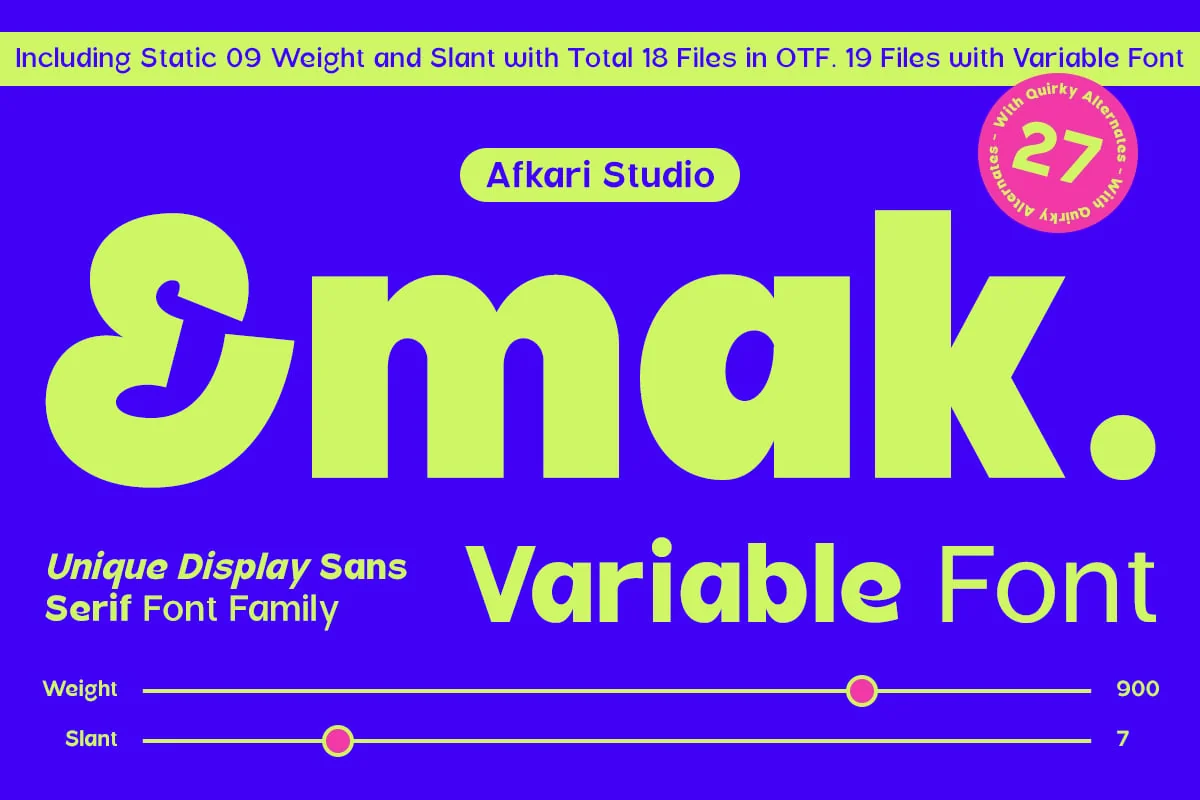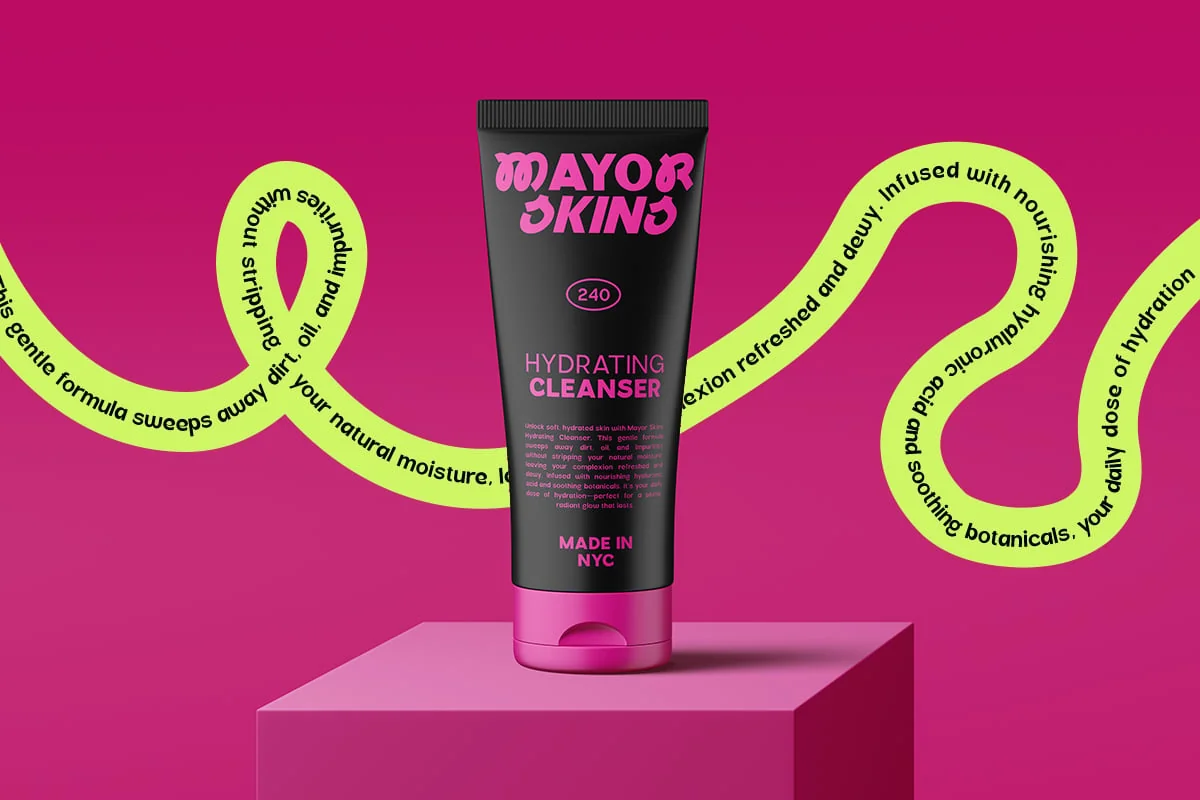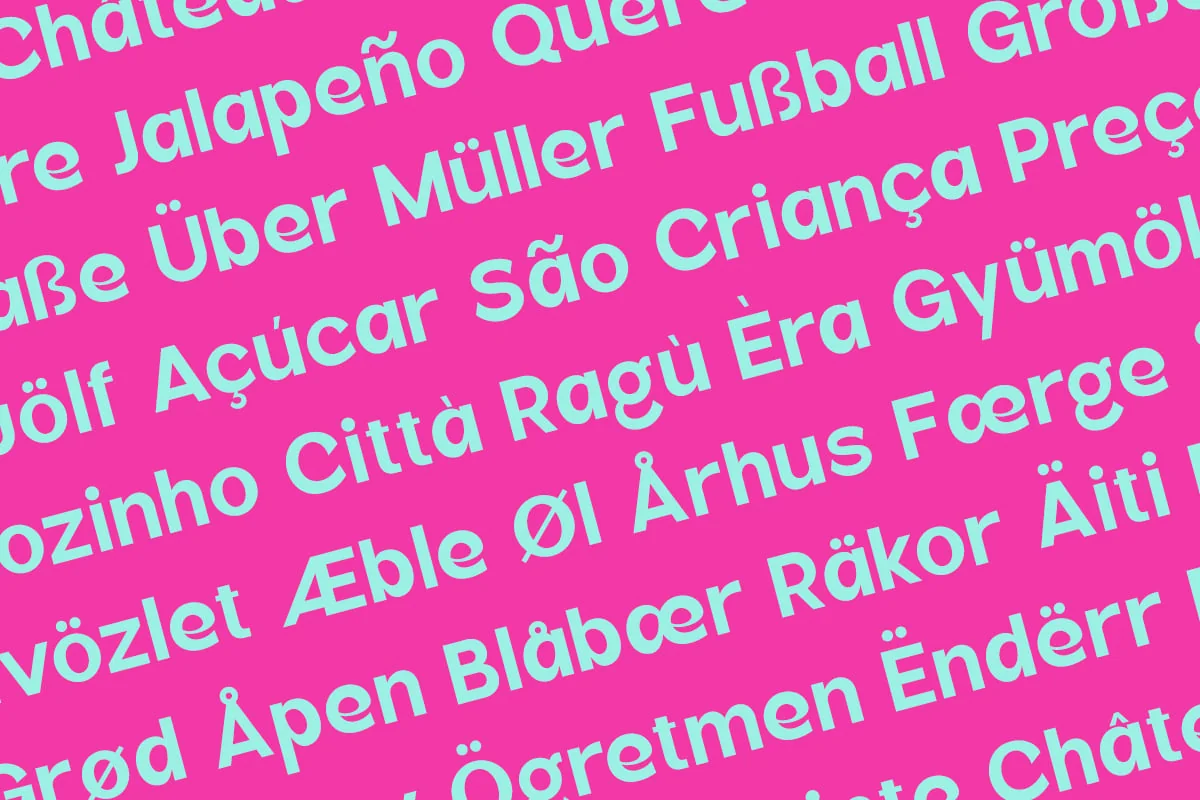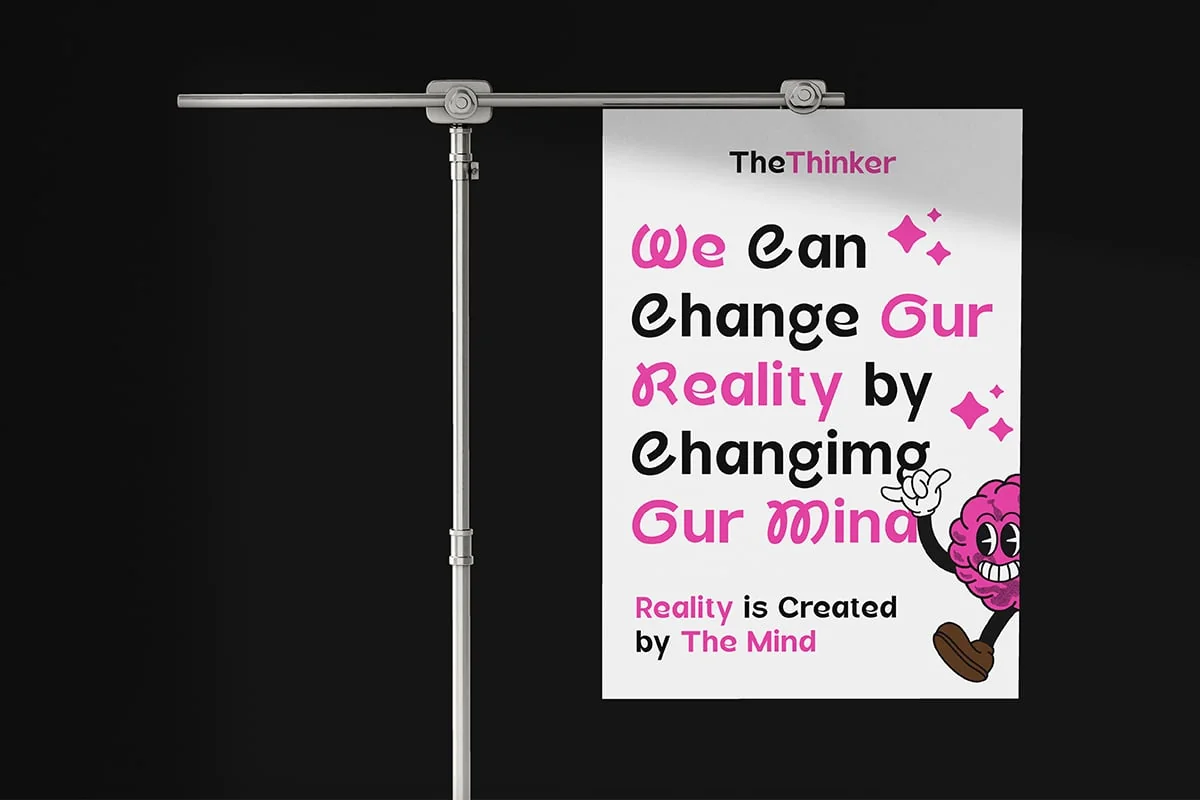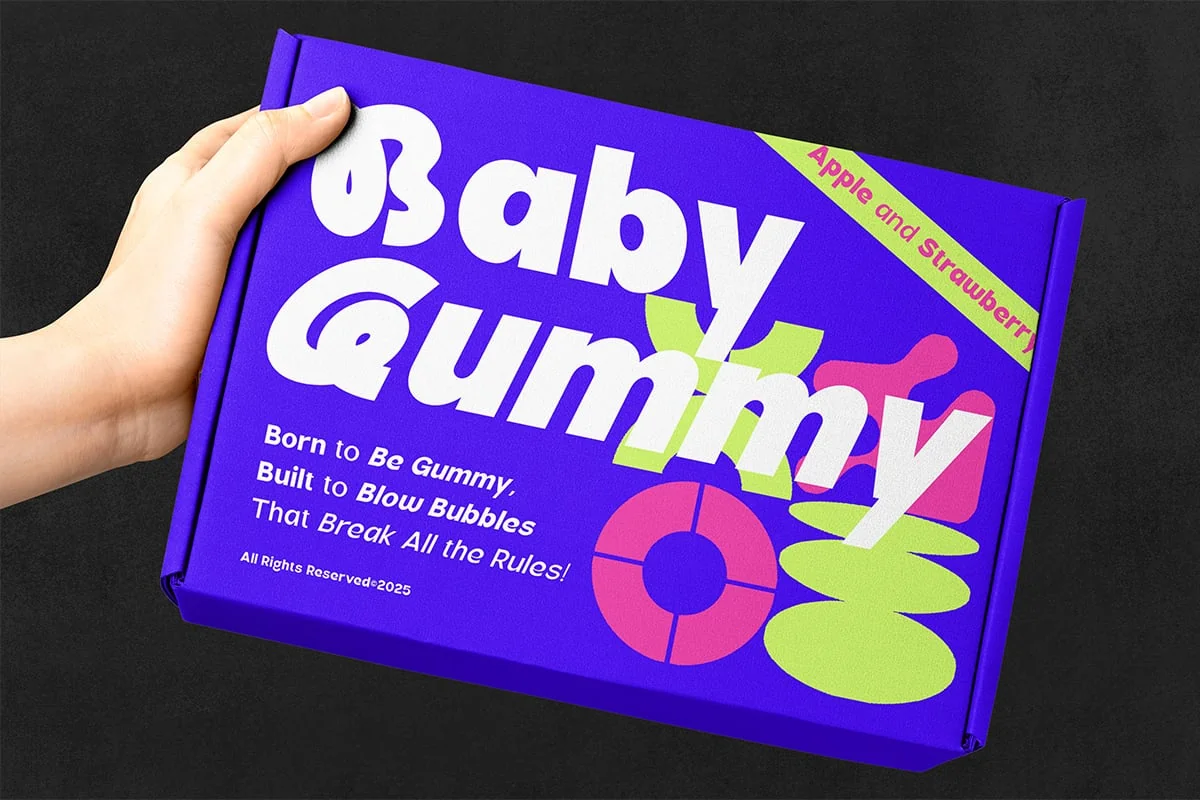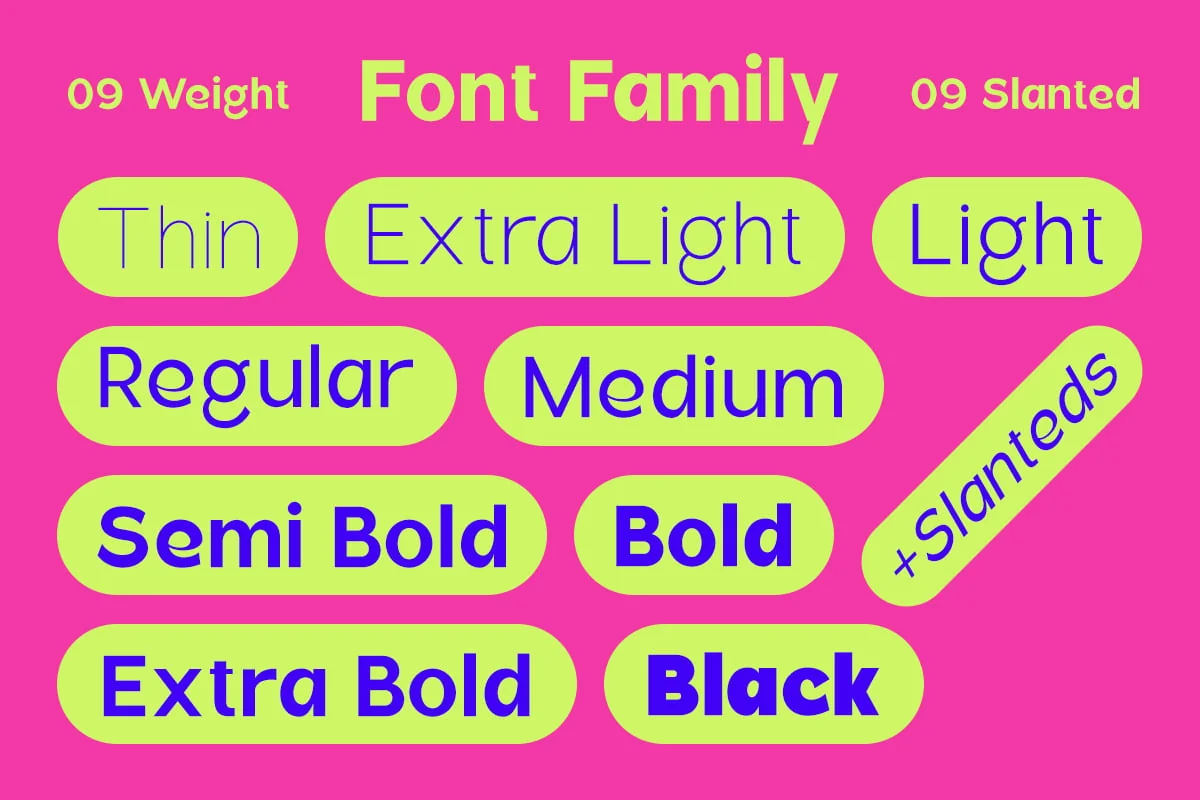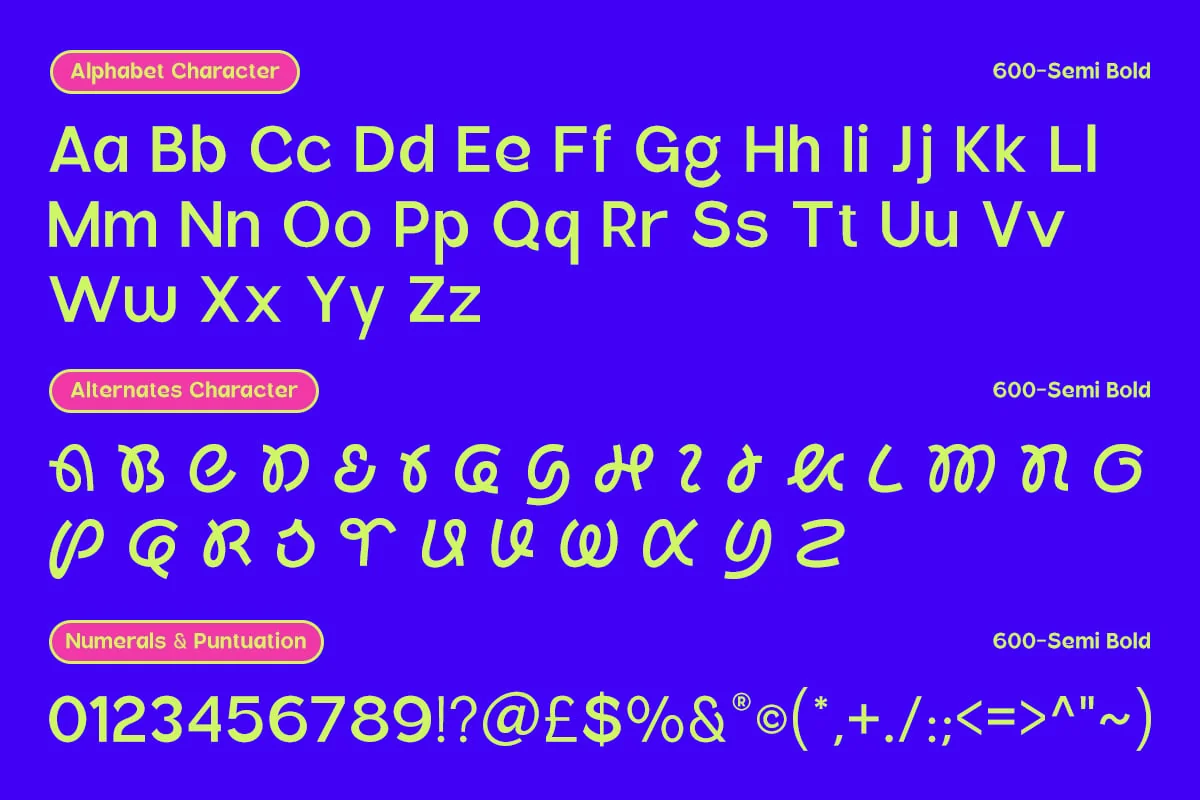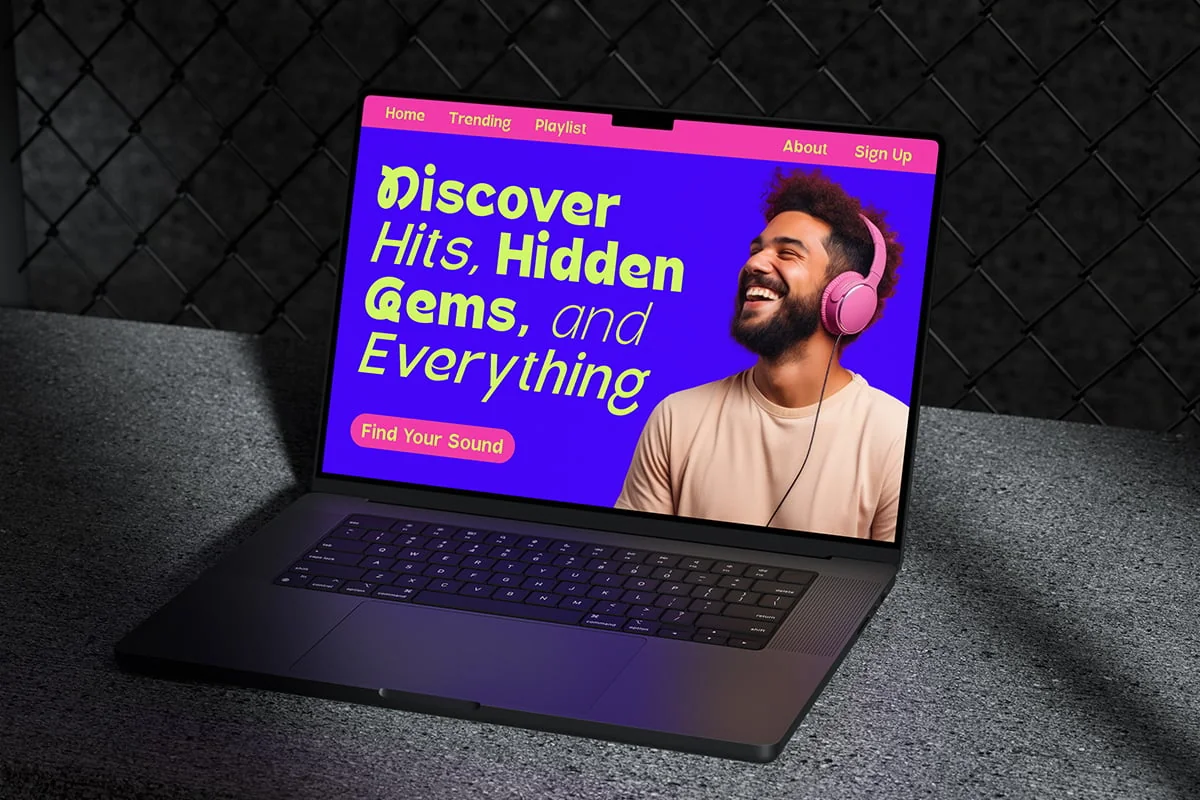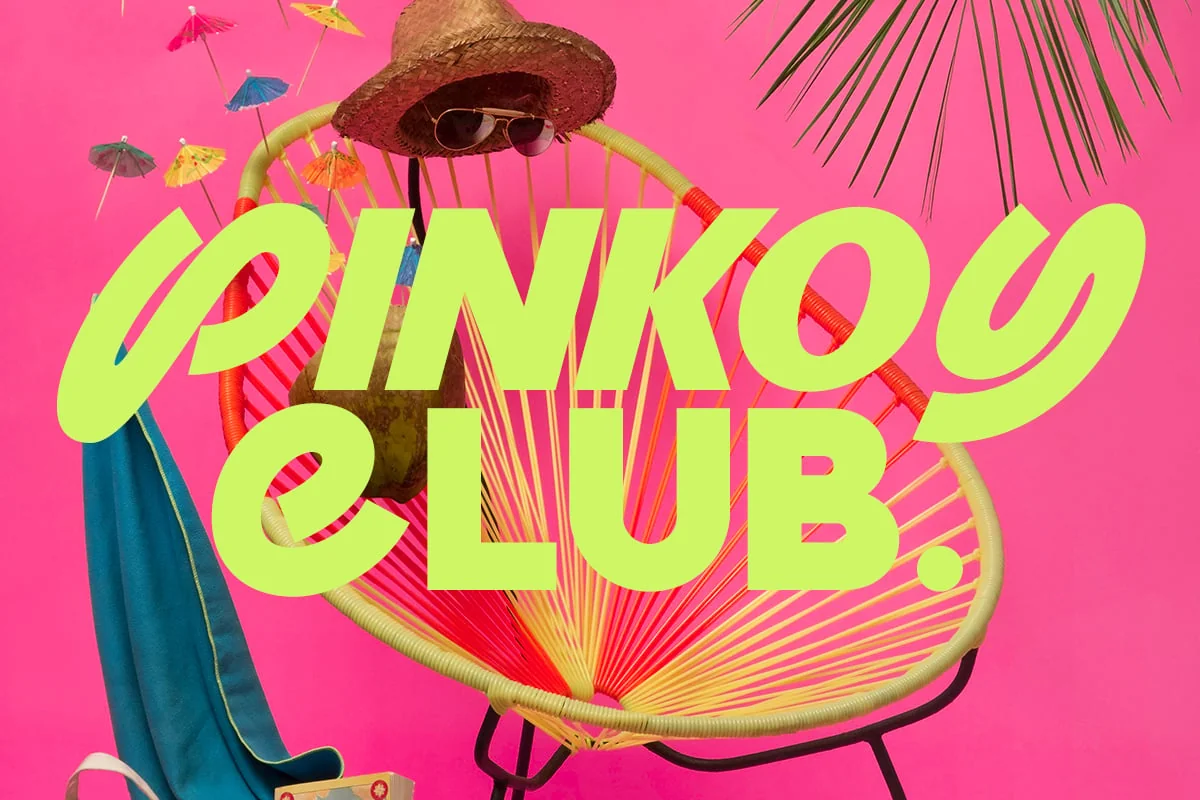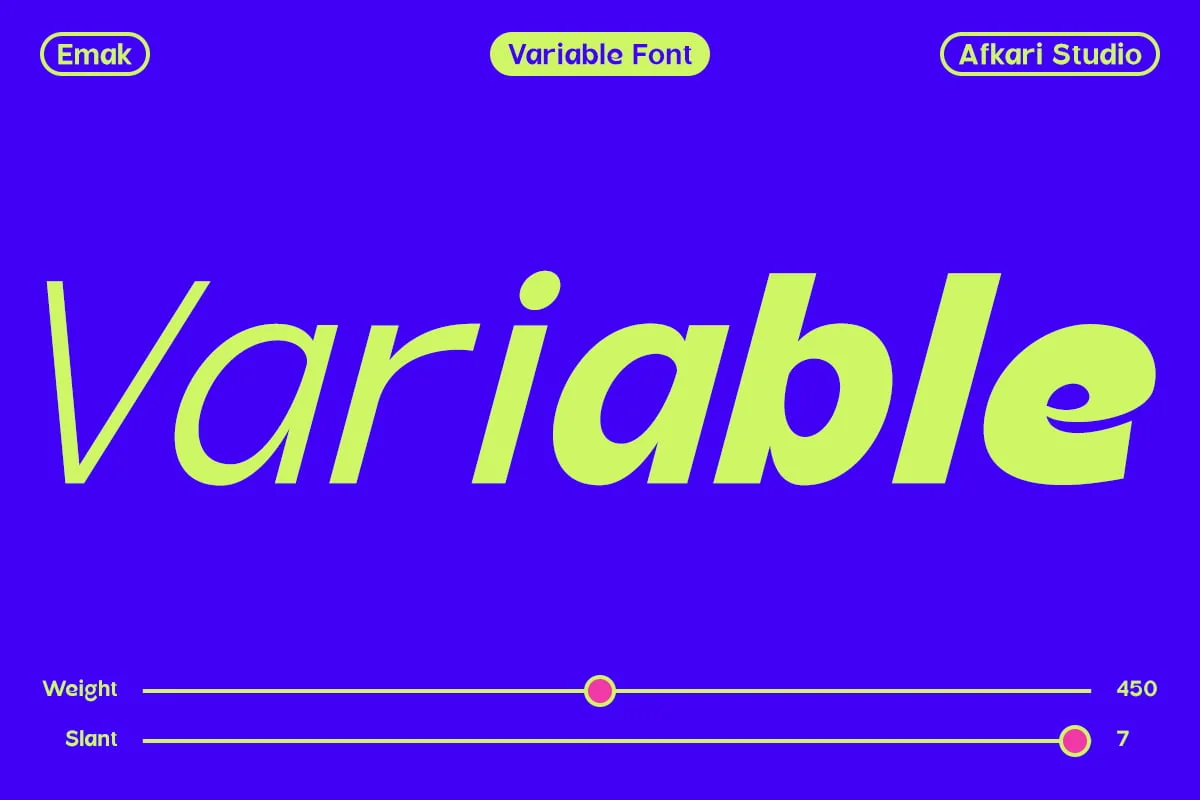
Emak – Modern Sans Serif Family Font
Emak – Modern Sans Serif Typeface with Variable Font
Emak is a bold and versatile sans-serif font family designed for modern and dynamic typography. With 18 weights ranging from Thin to Black, along with Slant styles and a Variable Font option, Emak provides ultimate flexibility for designers. Whether you’re crafting striking headlines, sleek branding, or engaging digital content, this typeface delivers both power and precision.
Emak is designed to be both functional and expressive. Its clean, modern lines make it a great choice for professional branding, while its slanted styles and special alternates allow for more artistic and dynamic typography. This balance makes Emak an excellent option for a wide range of creative fields, including advertising, editorial design, packaging, and digital media.
With a Variable Font feature, Emak provides the freedom to adjust weight and slant in real time, making it a flexible tool for designers who want precise control over their typography. Whether you need ultra-thin elegance or bold, high-impact lettering, Emak delivers seamless adaptability.
- 18 Weights: From Thin to Black, covering all design needs. OTT, TTF, WOFF2, Variable
- Slant Styles: Adds a stylish, italic-like variation for emphasis.
- Variable Font: Customize weight and slant for endless possibilities.
- Modern & Clean: Ideal for display typography, branding, and digital use.
- Excellent Readability: Works well at both large and small sizes.
- Mültîlíñgúãl Sùppört: Includes characters for various international languages.
Emak is a complete sans-serif typeface family designed for modern creators. With its extensive weight range, slant styles, variable font customization, and special alternates, it offers a perfect blend of functionality and creativity. Whether you need a sleek and professional look or a more dynamic, artistic feel, Emak is the perfect choice for your next project.